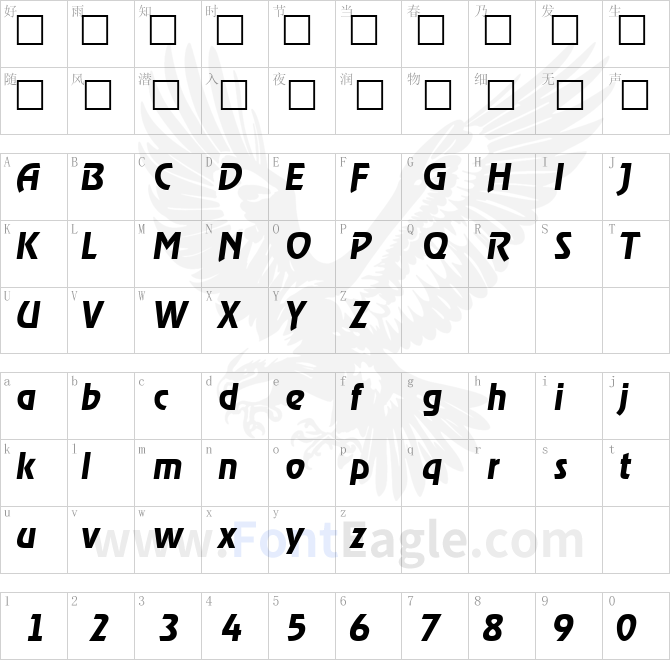
Ragtime-DemiBoldIta is a great font, widely used in graphic design, single-page menu design, poster design and other fields, and is deeply loved by designers.Ragtime-DemiBoldIta download.